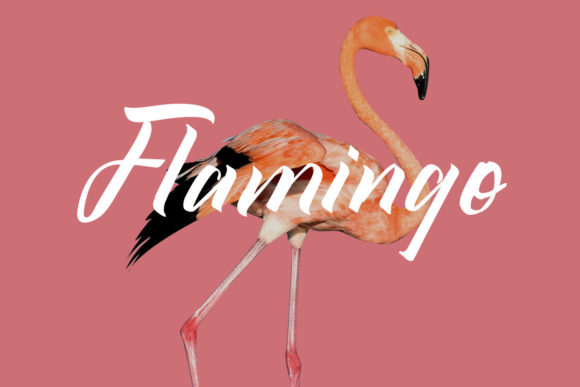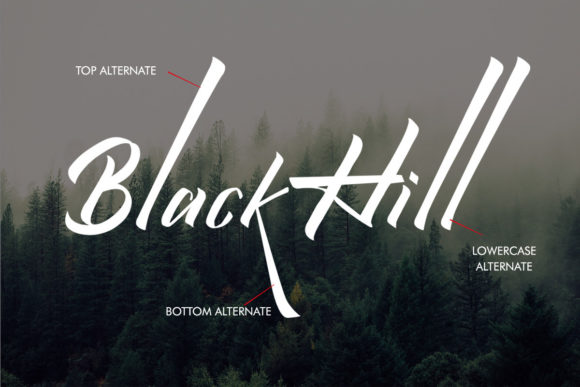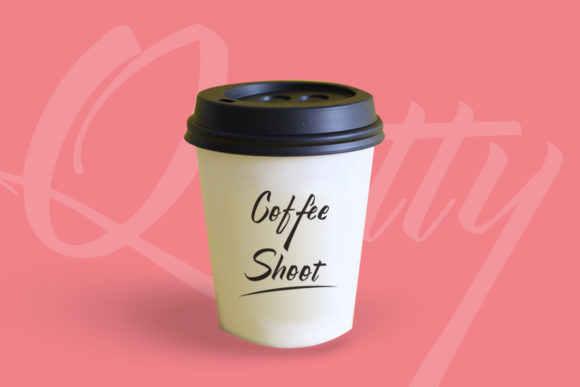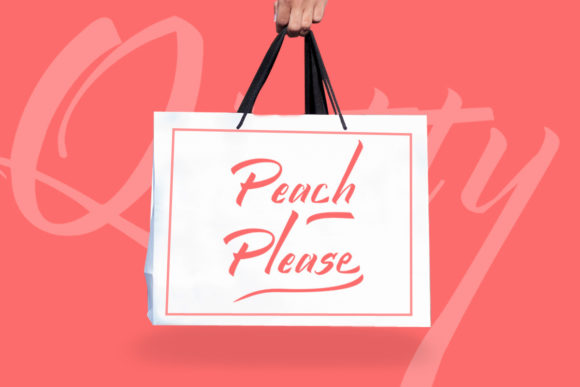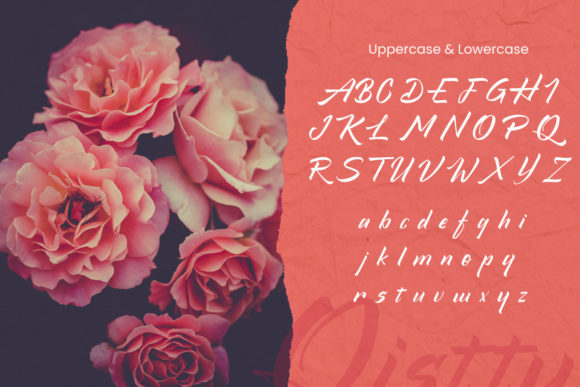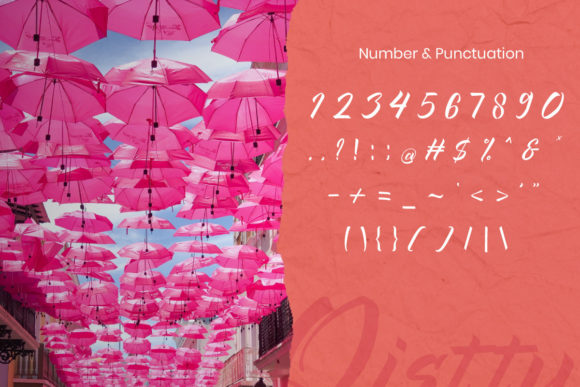
Introduction to Qistty Font
Qistty is a gorgeous and bold handwritten font, crafted to give your headlines and logotype projects a stylish touch.
This font reads as strong, confident, and dynamic and can add tons of nostalgic character to your designs .